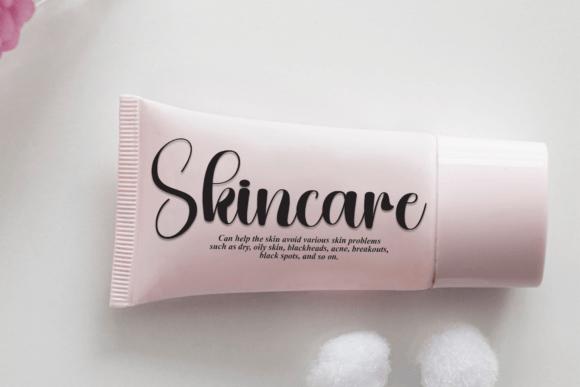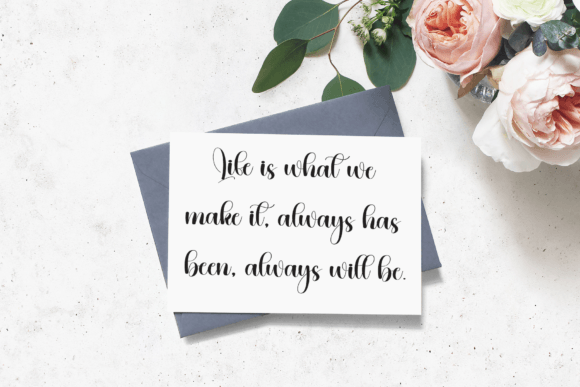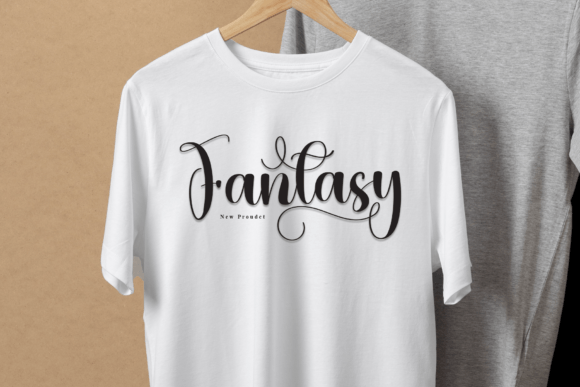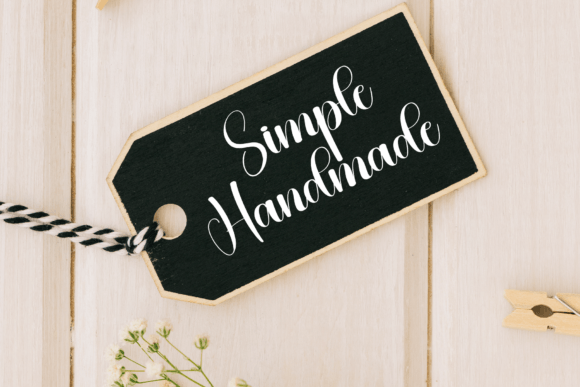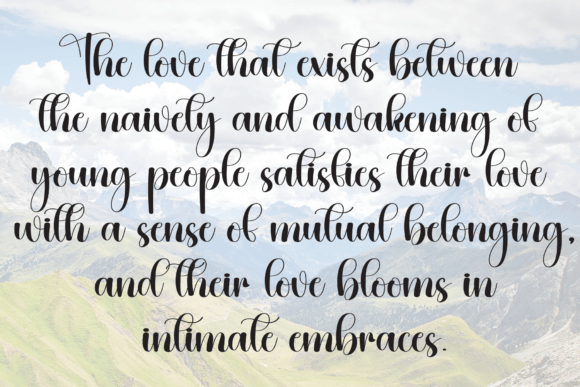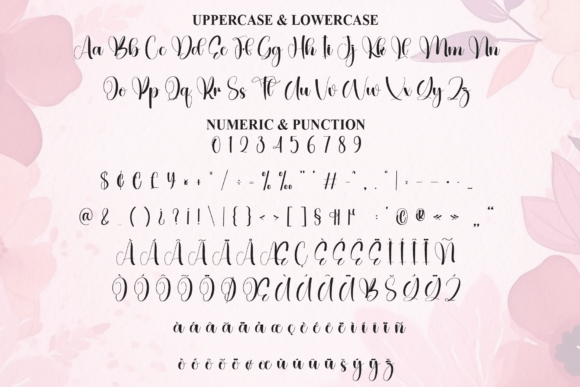
Introduction to Howdy Pinky Font
Have you ever stared at a blank canvas, waiting for the perfect spark to ignite your creative project? For designers, finding that initial spark can be the difference between a mediocre design and a masterpiece. It’s in these moments that we turn to trusted design resources, hoping to discover something that will set our work apart. For many, that spark comes in the form of a unique, high-quality font that captures the essence of our vision.
Enter the Howdy Pinky Font, a playful, handwritten font that embodies the perfect blend of whimsy and warmth. Its fun, curvy letters are designed to bring a smile to the reader’s face, making it the perfect choice for invitations, greeting cards, and any project that requires a touch of personality.
Key Features of Howdy Pinky Font
- High-quality design resource with a unique, playful style, perfect for creative projects.
- Transparent background, allowing for seamless integration into your design without any background distractions.
- Includes 6 different font styles, offering versatility for various design needs.
- Designed with a modern twist, ideal for use in digital and print media, including logos, branding, and creative projects.
Honest Review: Howdy Pinky Font
I recently had the opportunity to work with the Howdy Pinky Font on a creative project, and I must say, it’s a real gem. This high-quality font is perfect for any design resource that needs a touch of western charm.
Here are some things that really stood out to me:
- ✨ Unique and quirky design that adds a lot of personality to any project
- ✨ High-quality vector files that can be scaled up or down without losing any detail
- ✨ Perfect for creative projects that need a touch of whimsy and charm
- ⚠️ Limited character set, which may not be suitable for longer texts
- ⚠️ May not be suitable for formal or professional projects due to its playful nature
Overall, I was really impressed with the Howdy Pinky Font. It’s a great addition to any design resource library, and I would definitely recommend it for creative projects that need a touch of personality.
The Howdy Pinky Font is a high-quality design resource ideal for creative projects that require a playful and whimsical touch. This font is available for free download and features a transparent background, making it easy to integrate into various design elements.
Getting the Most Out of Howdy Pinky Font
To get the most out of the Howdy Pinky Font, consider using it in conjunction with other design elements, such as graphics and illustrations, to create a cohesive and visually appealing design.
The Howdy Pinky Font is ideal for use in a variety of creative projects, including: children’s book illustrations, party invitations, and social media graphics.